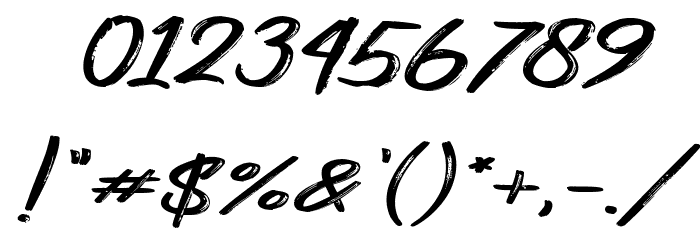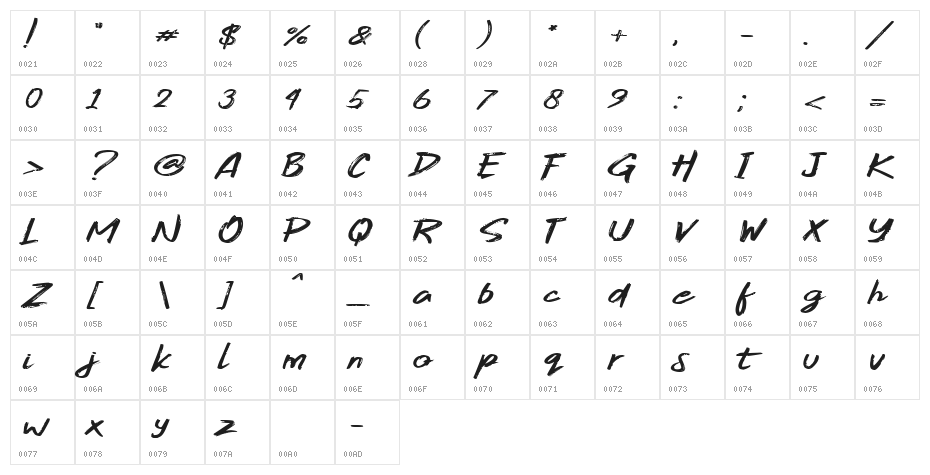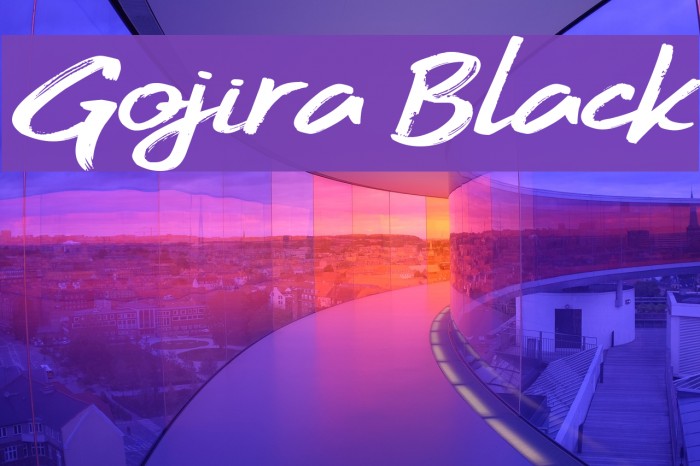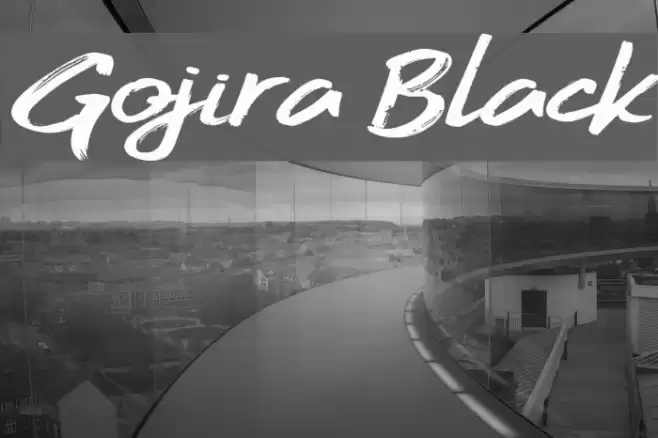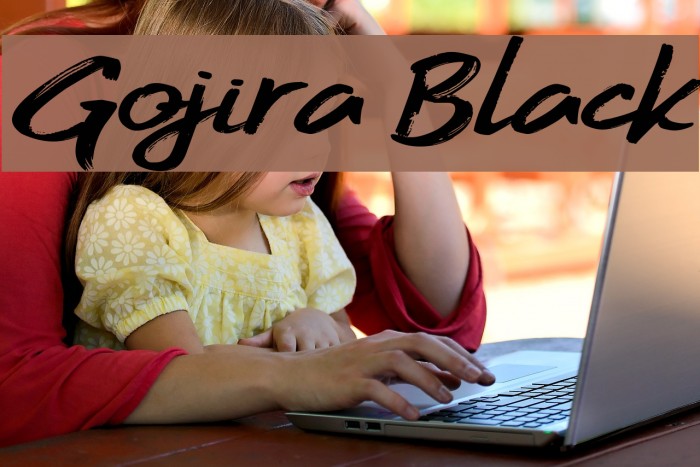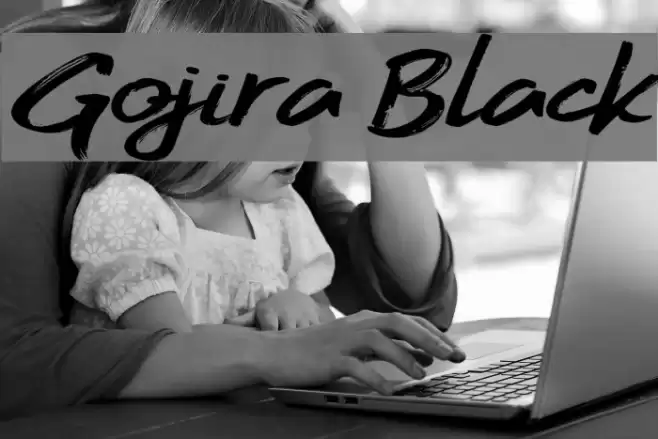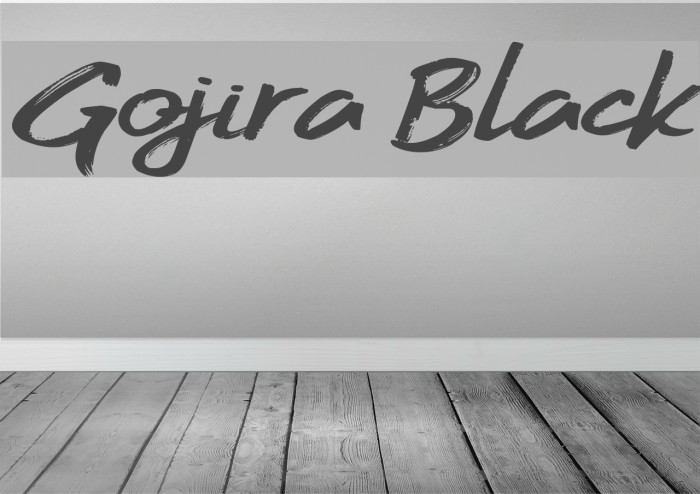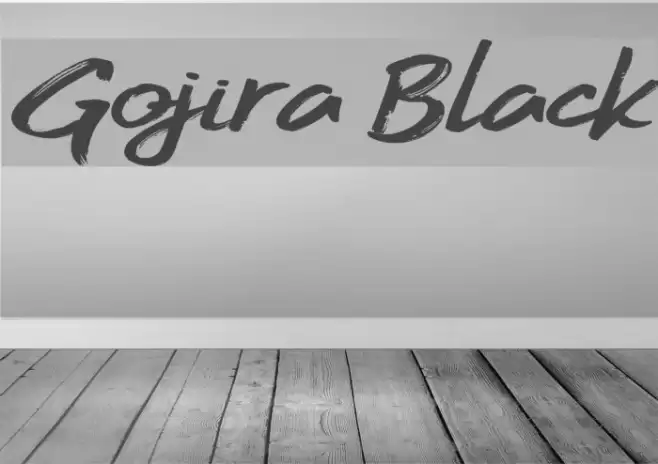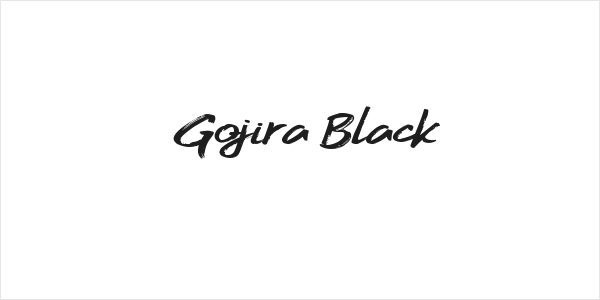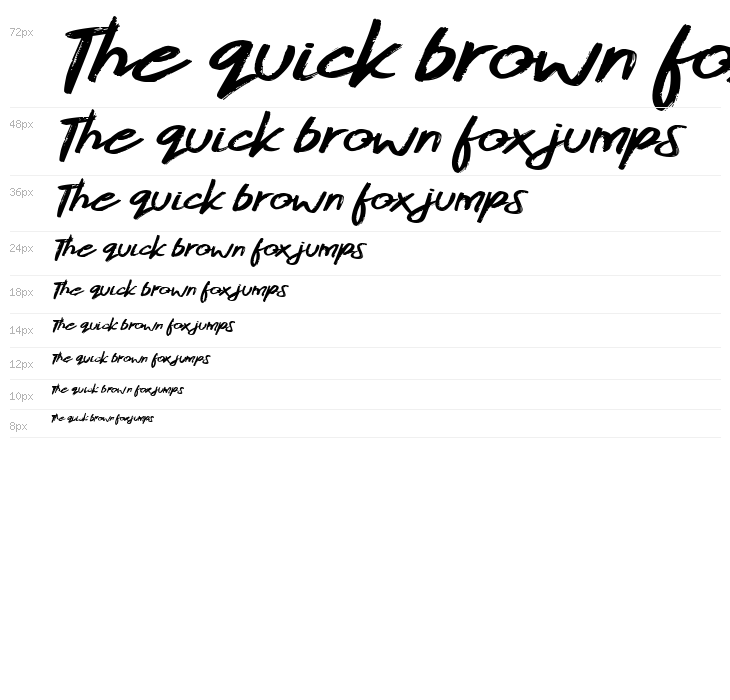
Gojira Black Font
Gojira Black Description
This font exudes a bold and energetic style, characterized by its brush-like strokes and dynamic flow. The letters have a hand-painted appearance, giving them a raw and expressive feel. The uppercase and lowercase letters maintain a consistent style, with varying stroke widths that add to the font's lively character. The numbers and special characters follow the same aesthetic, ensuring a cohesive look across all elements. This font is perfect for projects that require a strong visual impact and a sense of movement.
| Proposed Projects | Ideal for music album covers, posters, branding, and any creative project needing a bold statement. |